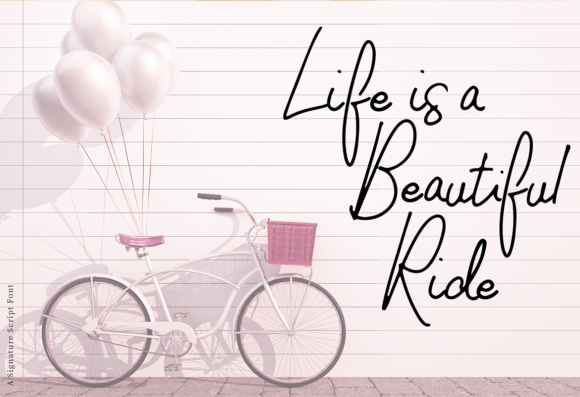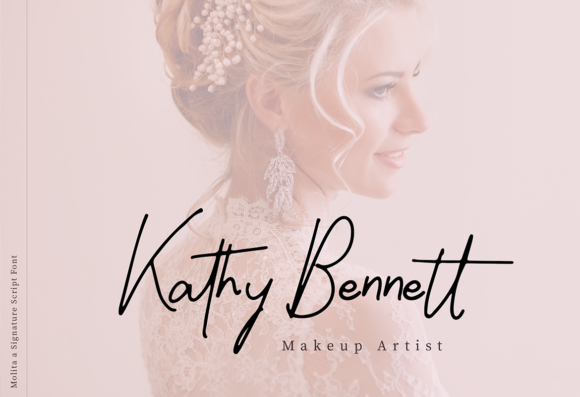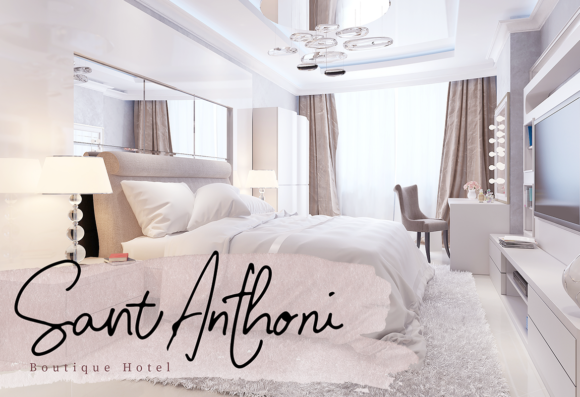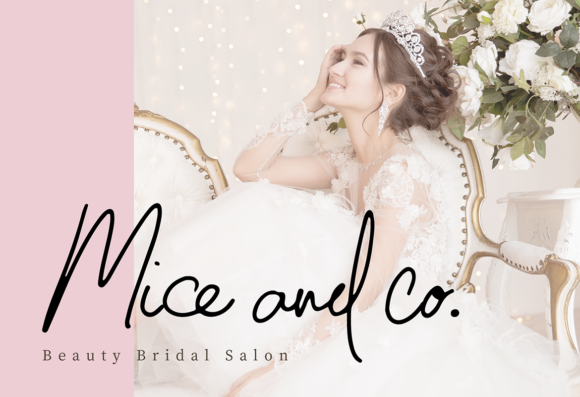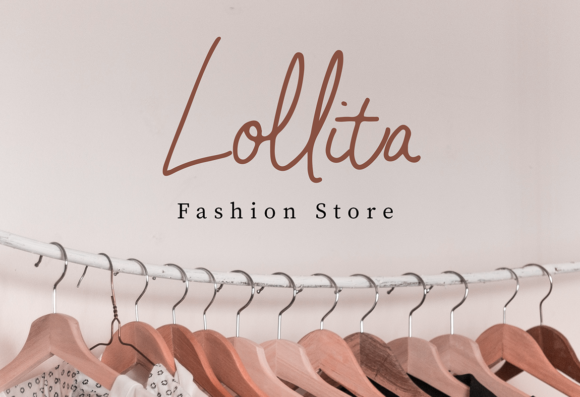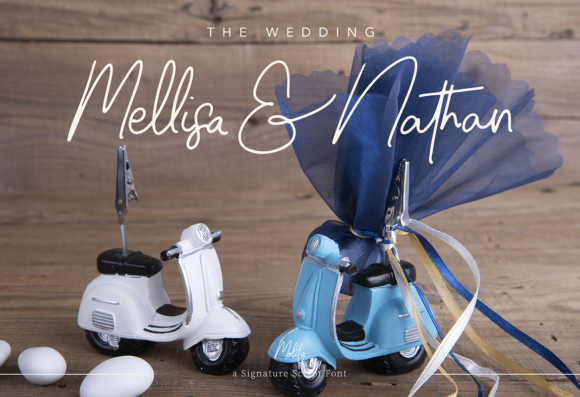
Introduction to Molita Font
Have you ever stumbled upon the perfect font while working on a design project and thought to yourself, ‘This is it, this is the one’? For designers, that moment of serendipity is priceless. It’s the moment when all the elements come together, and the design starts to shine. For many, that perfect font is the Molita Font, a high-quality, elegant signature font that elevates any creative project.
Whether you’re working on a branding project, creating a presentation, or designing product packaging, Molita Font is a valuable resource that can make all the difference. Its elegant feel and versatility make it perfect for a wide range of applications, from wedding and fashion themes to stylish text overlays on any background image. And the best part? It’s available for free download, making it an accessible design resource for designers of all levels.
Key Features of Molita Font
- High-quality design resource perfect for creative projects, including graphics, logos, and digital art.
- Features a transparent background, allowing for easy integration into any design or creative project.
- Includes a wide range of characters, including uppercase and lowercase letters, numbers, and special characters, making it a versatile font for various applications.
- Designed with a unique and elegant style, making it an ideal choice for creative projects that require a touch of sophistication.
Honest Review: Molita Font
I recently came across the Molita Font, and I must say it’s a fantastic addition to any designer’s toolkit. As a design resource, it’s a high-quality font that’s perfect for creative projects.
Here are some things that work well about the Molita Font:
- ✨ Beautiful, modern design that’s perfect for titles and headings.
- ✨ Highly customizable, making it ideal for a wide range of creative projects.
- ✨ Transparent background, allowing for seamless integration with other design elements.
- ⚠️ Limited font sizes, which may require some creative workarounds.
- ⚠️ Not suitable for very small text sizes.
Overall, I’m very impressed with the Molita Font. Its high quality, modern design, and free download make it a great addition to any designer’s toolkit. With a little creativity, the limitations can be easily overcome, making it a fantastic resource for any creative project.
Molita Font
The Molita Font is a versatile design resource that can elevate your creative project. With its high-quality design and transparent background, it’s perfect for a variety of applications.
Tips for Getting the Most Out of Molita Font
To get the most out of the Molita Font, use it in conjunction with other high-quality design resources. Experiment with different font sizes, colors, and combinations to create unique and eye-catching designs.
The Molita Font is commonly used in creative projects such as logos, brochures, and social media graphics. Its high-quality design and transparent background make it perfect for a variety of applications.